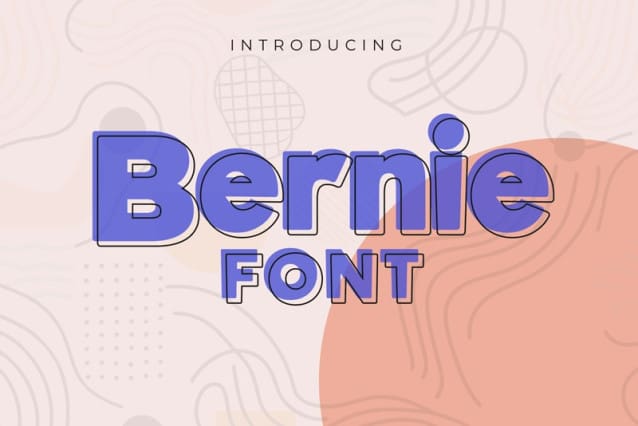
Bernie Font
Bernie Font is a sans serif display font, chunky, comic and cartoon font. With its clean and playful personality, this font will elevate any project you want to create!